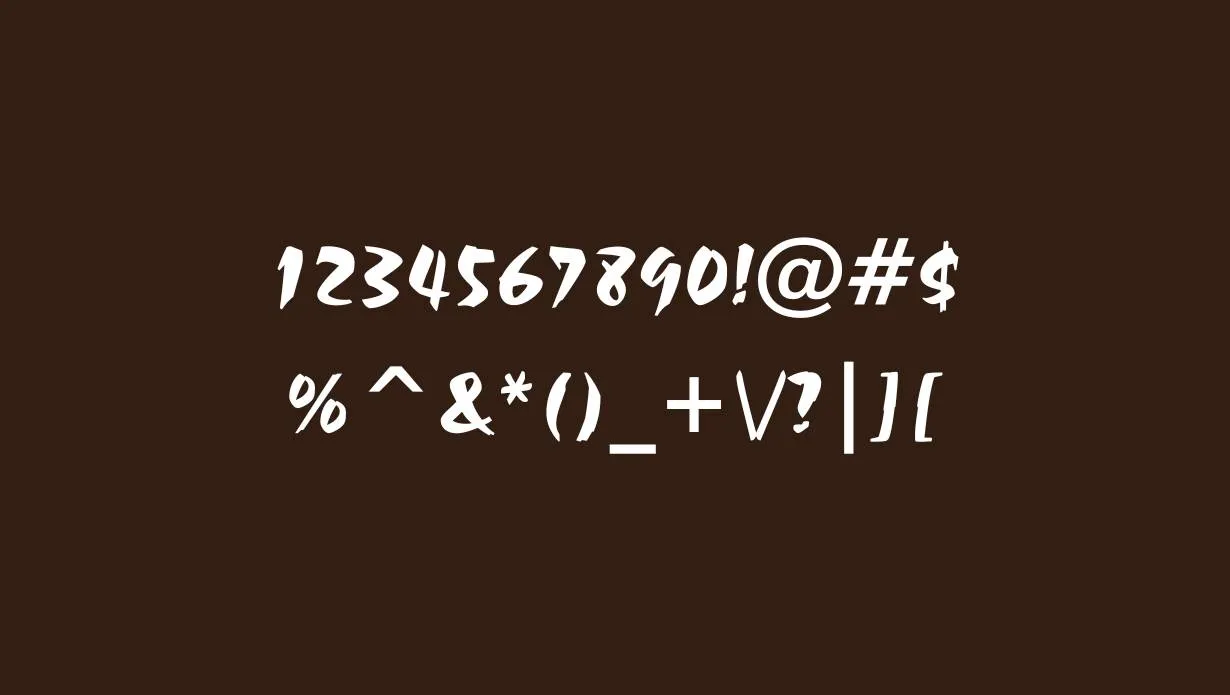
Staccato Font is a fancy font that was designed by Fabian Pfeifhofer and manufactured by Loosy Designs. It has a very clear look with all the small letters which look very cute and loveable.
It has 27 characters,28 glyphs, and 1000 units per Em. Unicode supported 2.0 and BMP only. The weight of this typeface is Semi-light and its width is medium (normal).